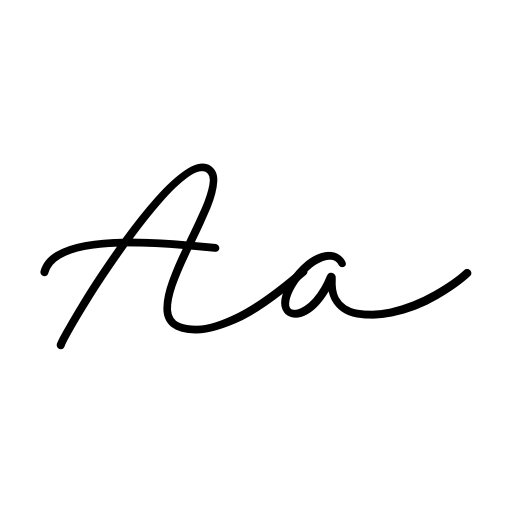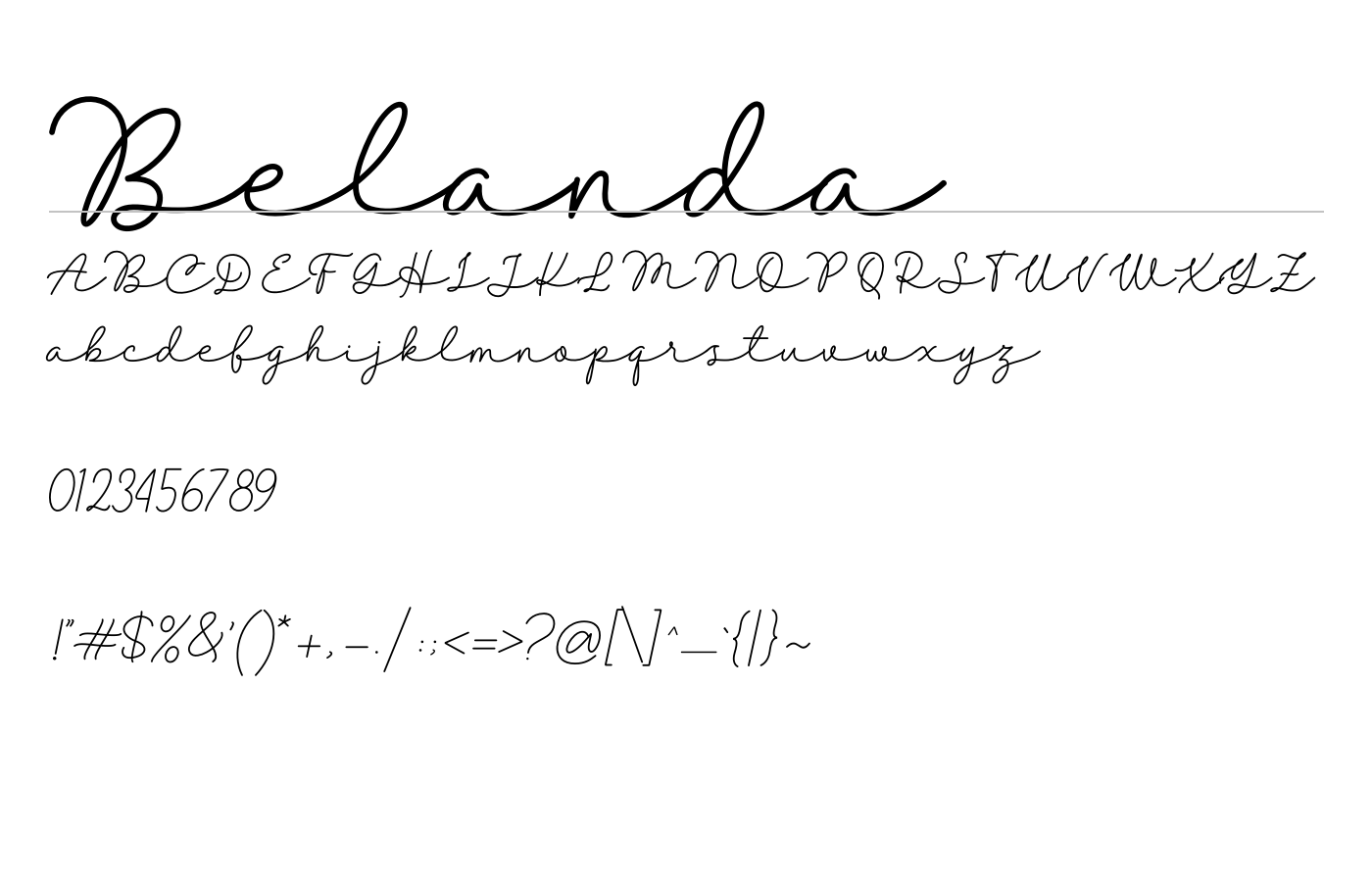
Belanda is a delicate, script-style font with a light weight and elegant, flowing strokes that mimic natural handwriting. Its slender, slightly condensed letterforms with subtle loops and curves give it a refined, personal touch perfect for invitations, branding, and editorial design where a sophisticated, graceful feel is desired. This font works especially well in contexts that require a charming and approachable aesthetic, such as fashion logos, greeting cards, and stylish web headings.
Belanda Font
About Belanda Font